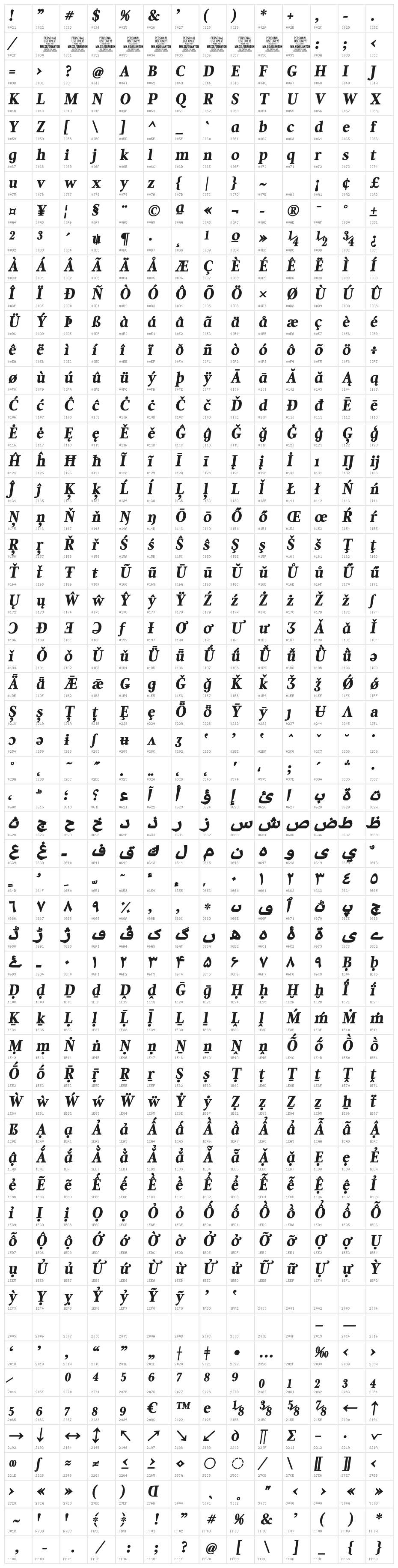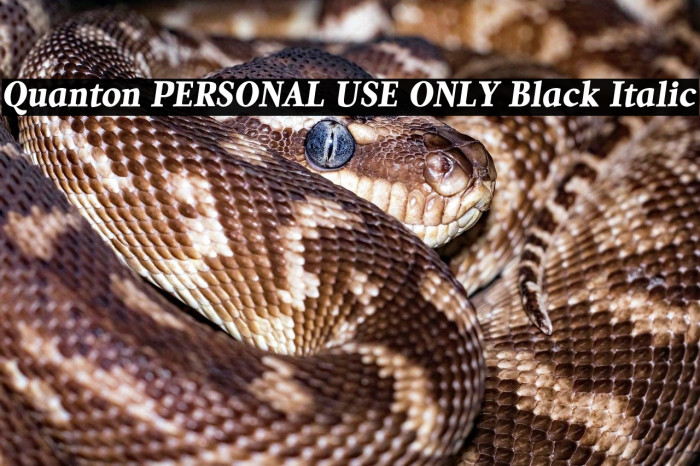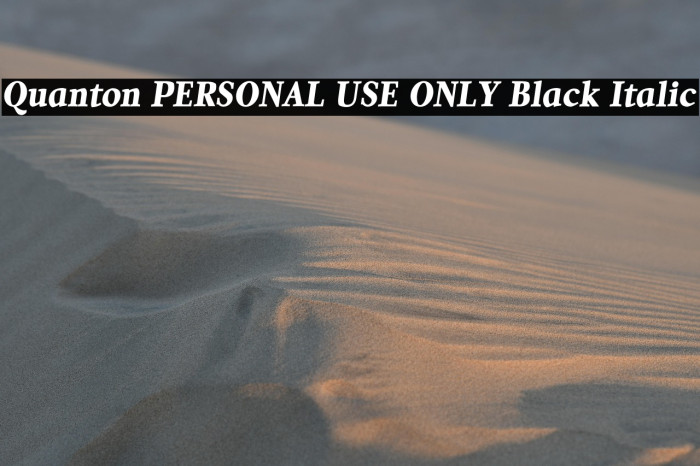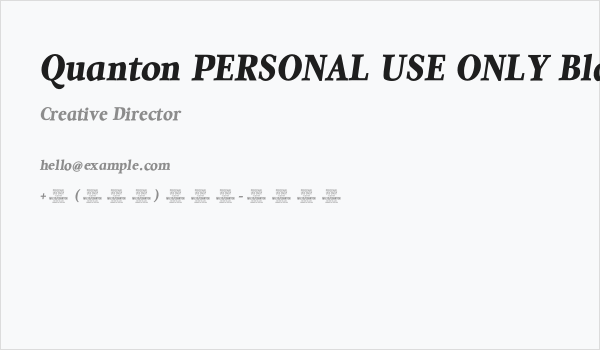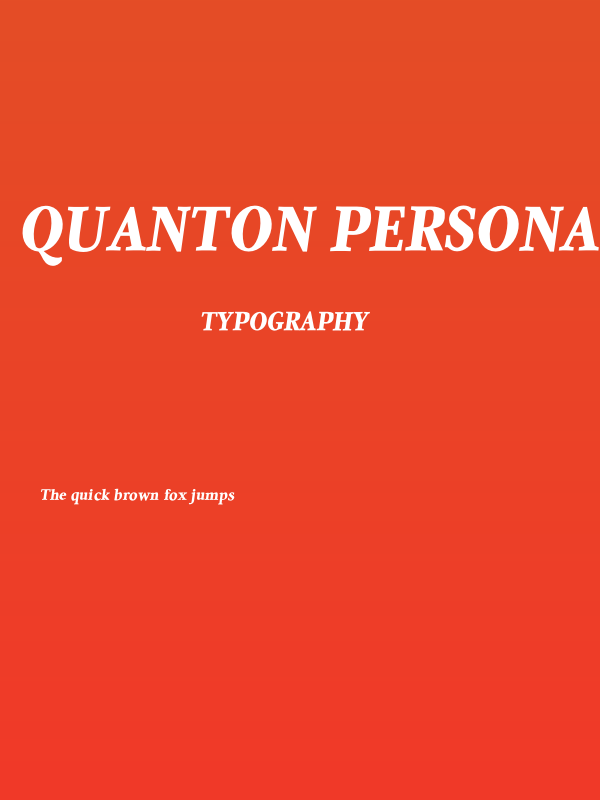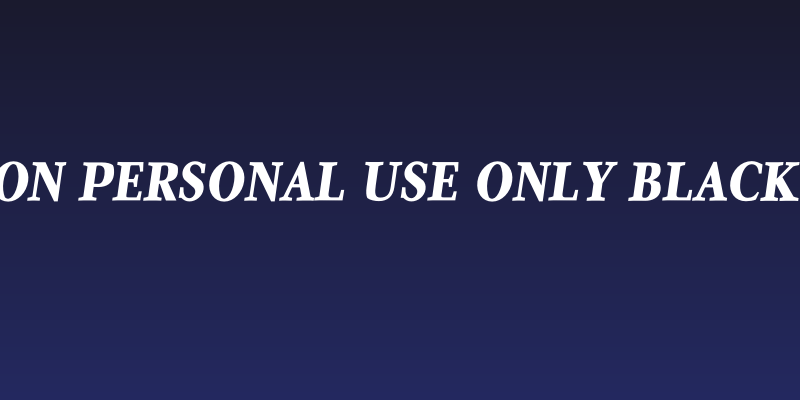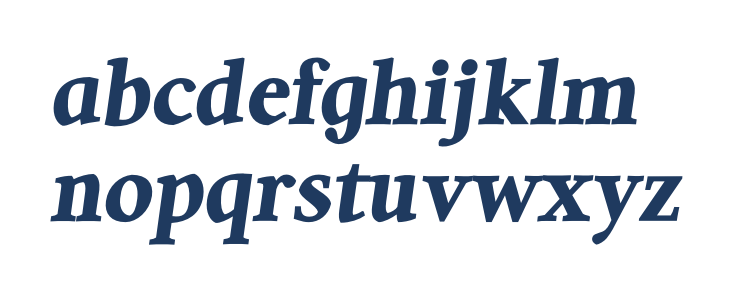
Quanton PERSONAL USE ONLY Black Italic Font
Quanton PERSONAL USE ONLY Black Italic Description
This font features a bold and italicized style, characterized by strong, thick strokes that convey a sense of authority and emphasis. The letters are slightly slanted, adding a dynamic and forward-moving feel. The uppercase letters are robust and commanding, while the lowercase letters maintain a consistent weight, ensuring readability. The numerals and special characters are designed to match the boldness of the alphabet, making them suitable for impactful statements. The overall design is modern yet retains a classic touch, making it versatile for various applications.